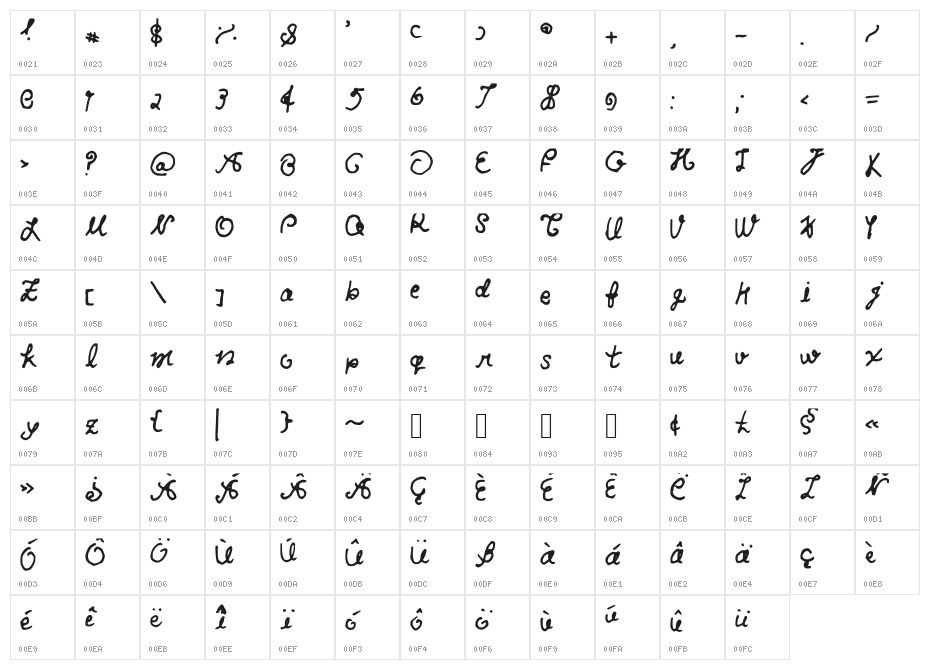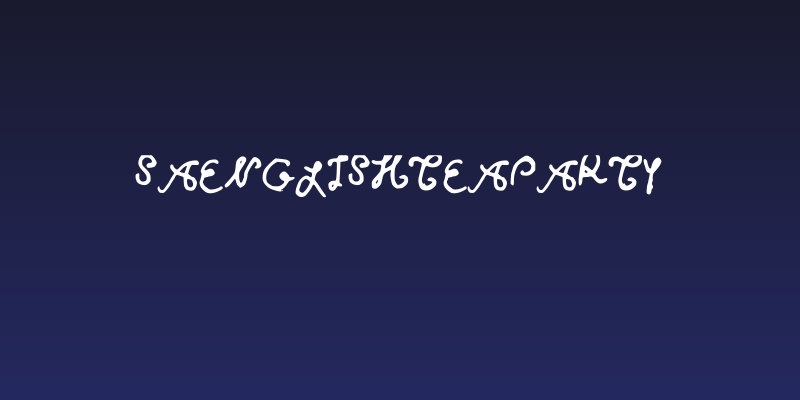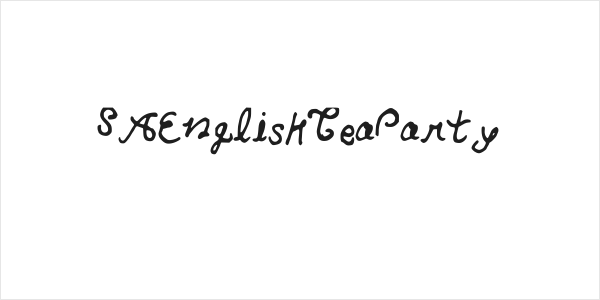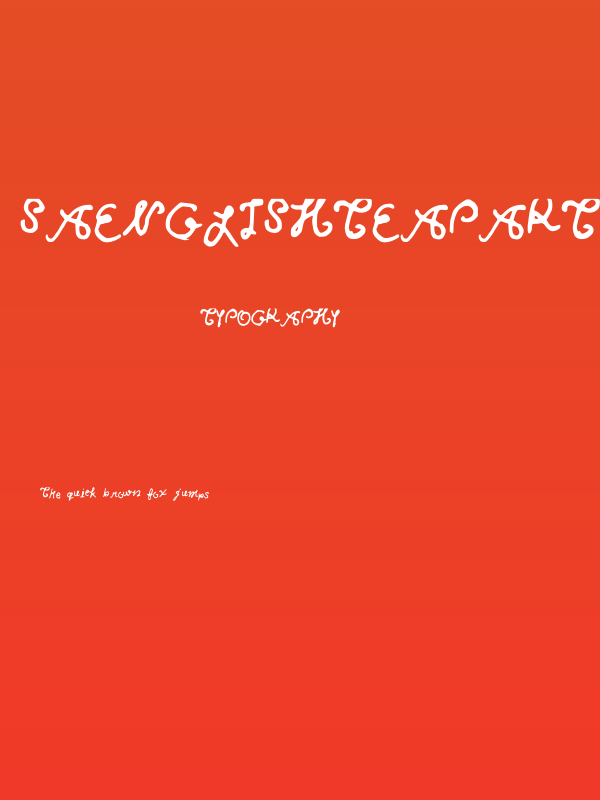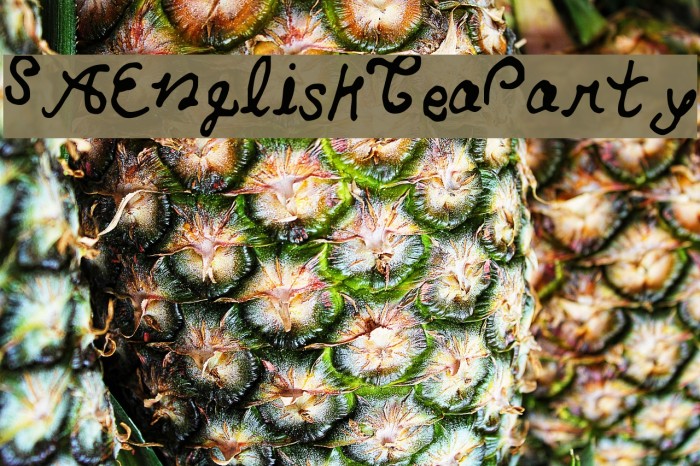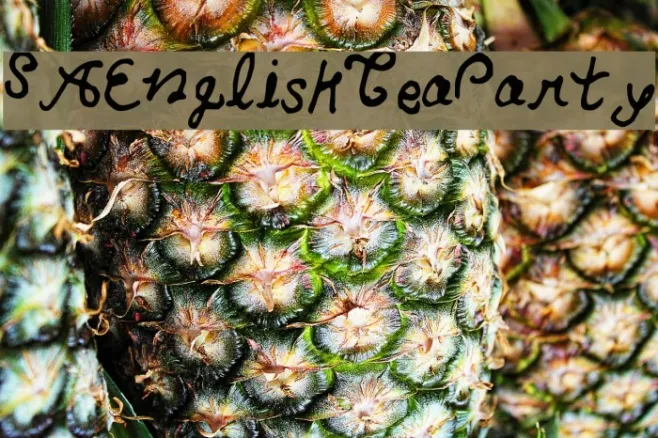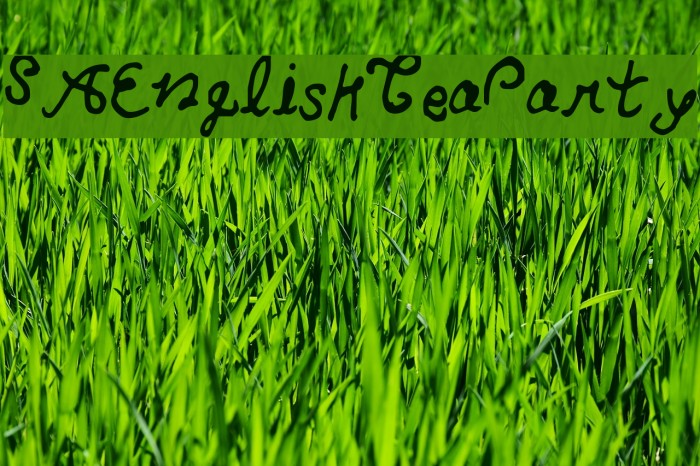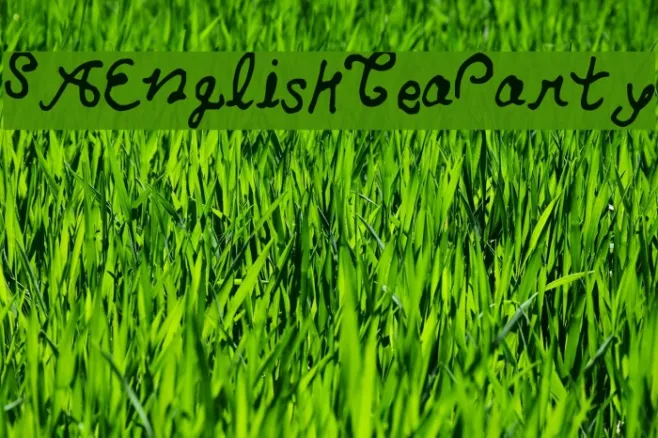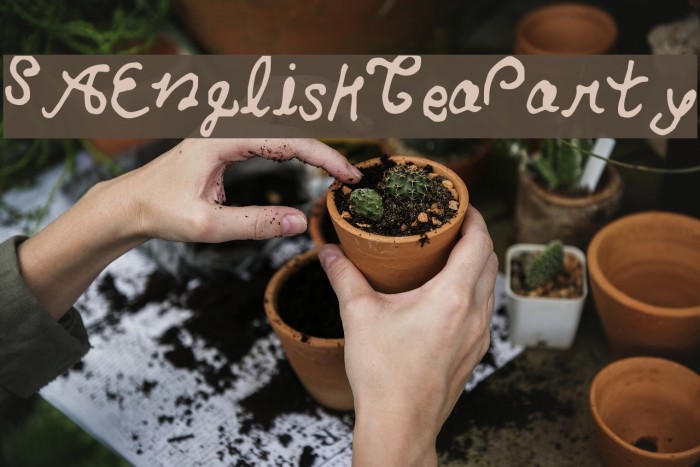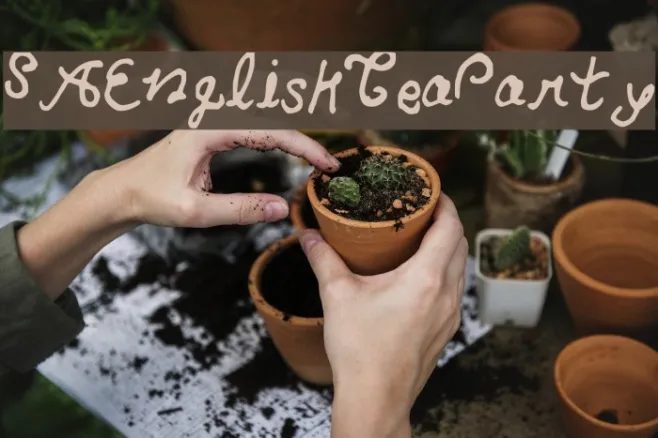
SAEnglishTeaParty Font
SAEnglishTeaParty Description
This font exudes a playful and whimsical charm, characterized by its fluid, cursive strokes that mimic the elegance of handwritten script. Each letter is crafted with a sense of movement, featuring loops and curves that give it a lively personality. The uppercase letters are bold and expressive, while the lowercase letters maintain a consistent flow, enhancing readability. Numbers and special characters are designed with the same playful style, ensuring a cohesive look across all text. The font's unique style makes it suitable for creative projects that require a touch of personality and flair.
| Use Case | Logos, Invitations, Creative projects |
| Proposed Projects | Ideal for greeting cards, invitations, branding, and creative posters. |